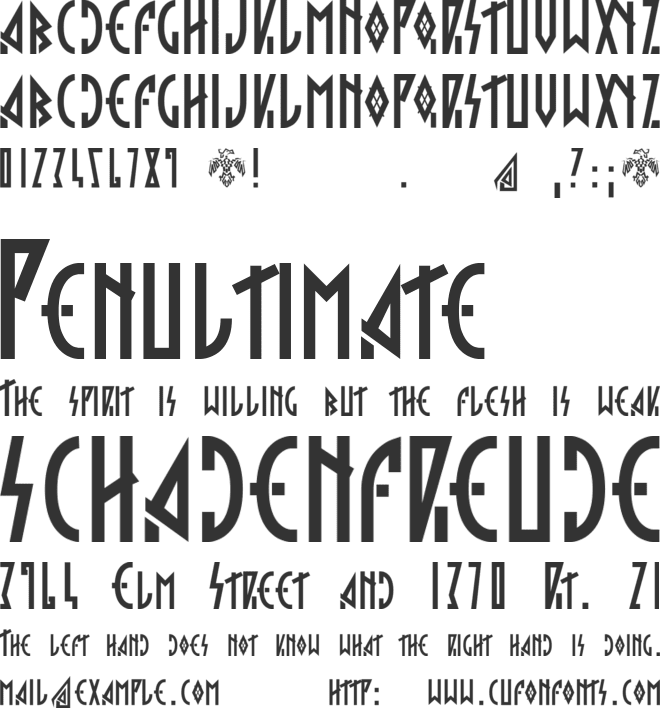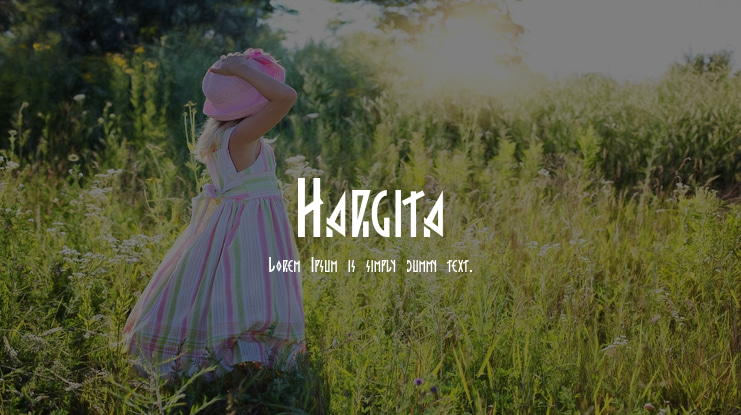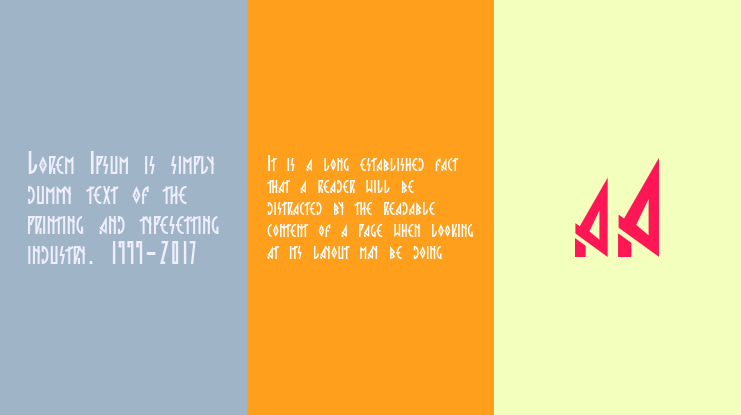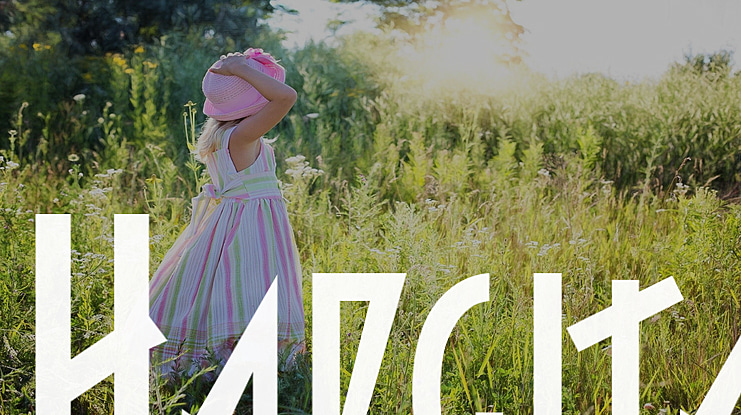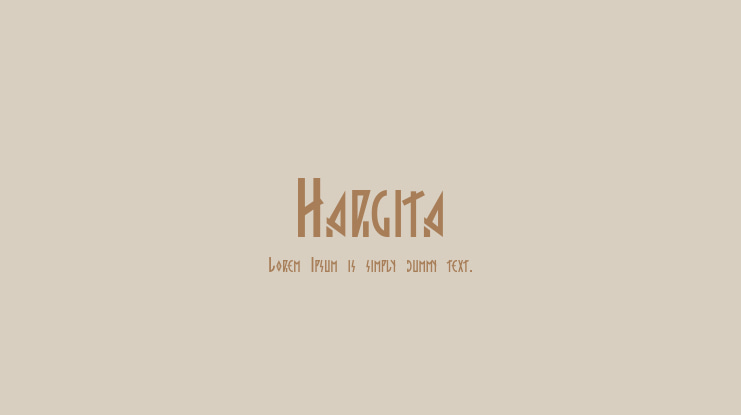
Hargita Font
(HARGITA) is inspired by ancient hungarian runes (rovás), named after the Hargita Mountains in Transylvania. There were no small caps in runes, so I just scaled down the capital versions. I included icons of a totem bird called Turul and the symbol of the sun and the moon from the flag of Székely Land.